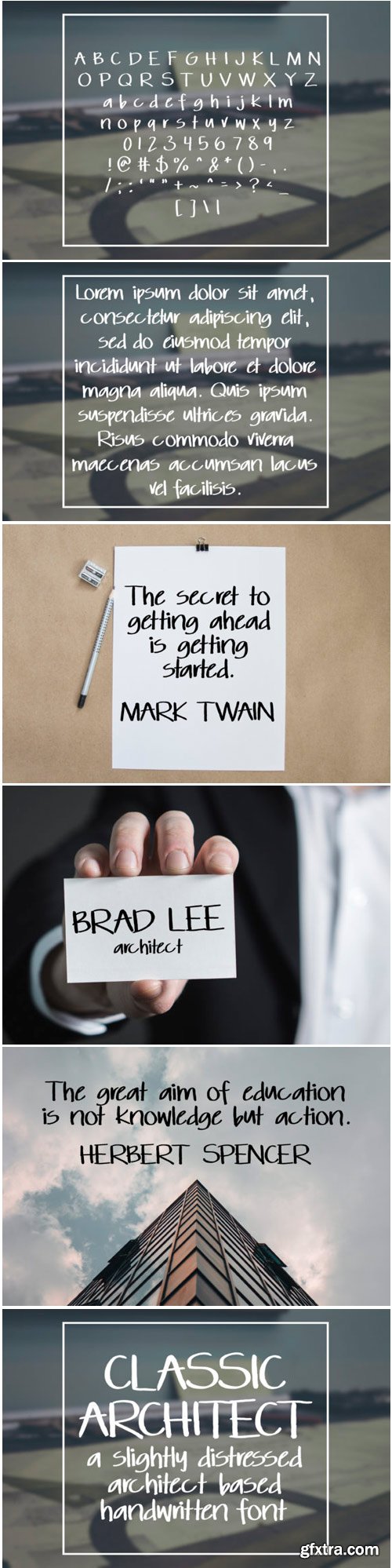
Classic Architect Font
The Classic Architect is a slightly distressed handwritten font! Its boy-ish look would be a great complement to any script font.